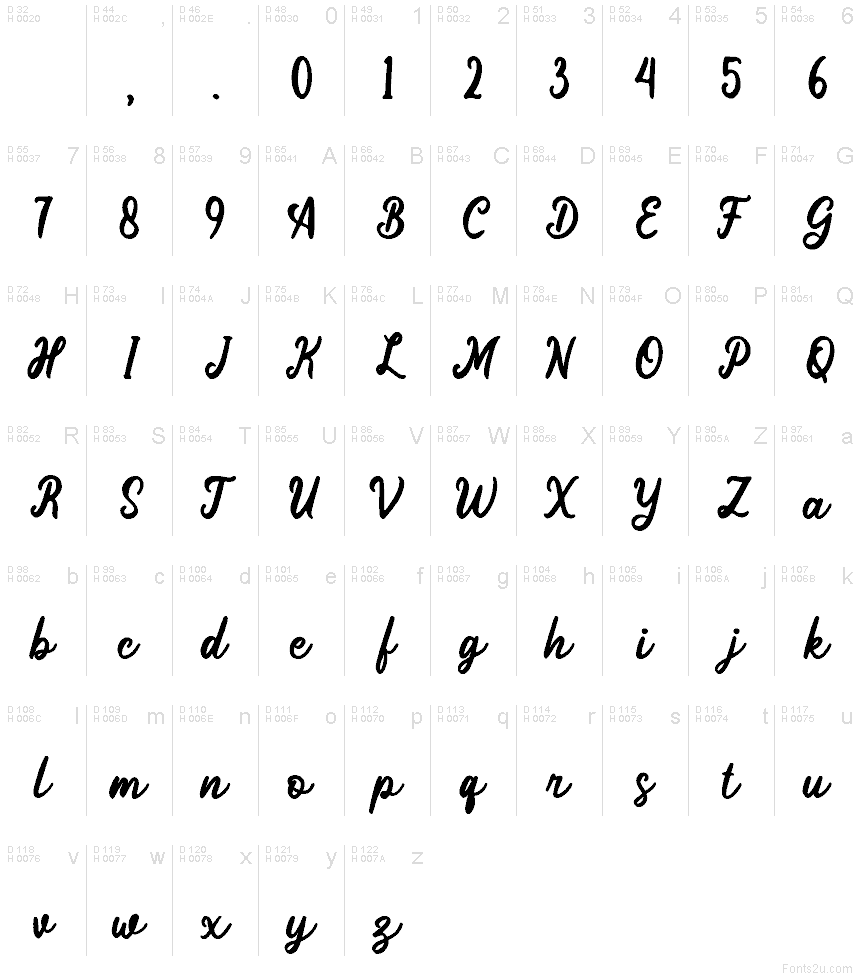
Barsime
Barsime font by Forberas Club is a stunning handwritten font with signature script style. The font displays a level of elegance with its smooth transitions between characters, creating a cohesive flow in almost any context it is used in. This modern signing-like typeface also features some subtle detailing that strengthens its professional appearance.
Use Barsime for logo designs and branding or packaging projects. It would also be beautiful on invitation cards, merchandise design, greeting cards, magazines or just as overlying text on background images. Feel free to explore the possibilities with this free calligraphy font!